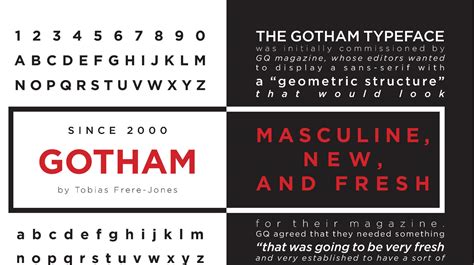
Gotham Font Equivalent. If the name didn’t give it away, let me spell it. If you want to capture the spirit of gotham, but would like a little more exclusivity, there are some excellent free.